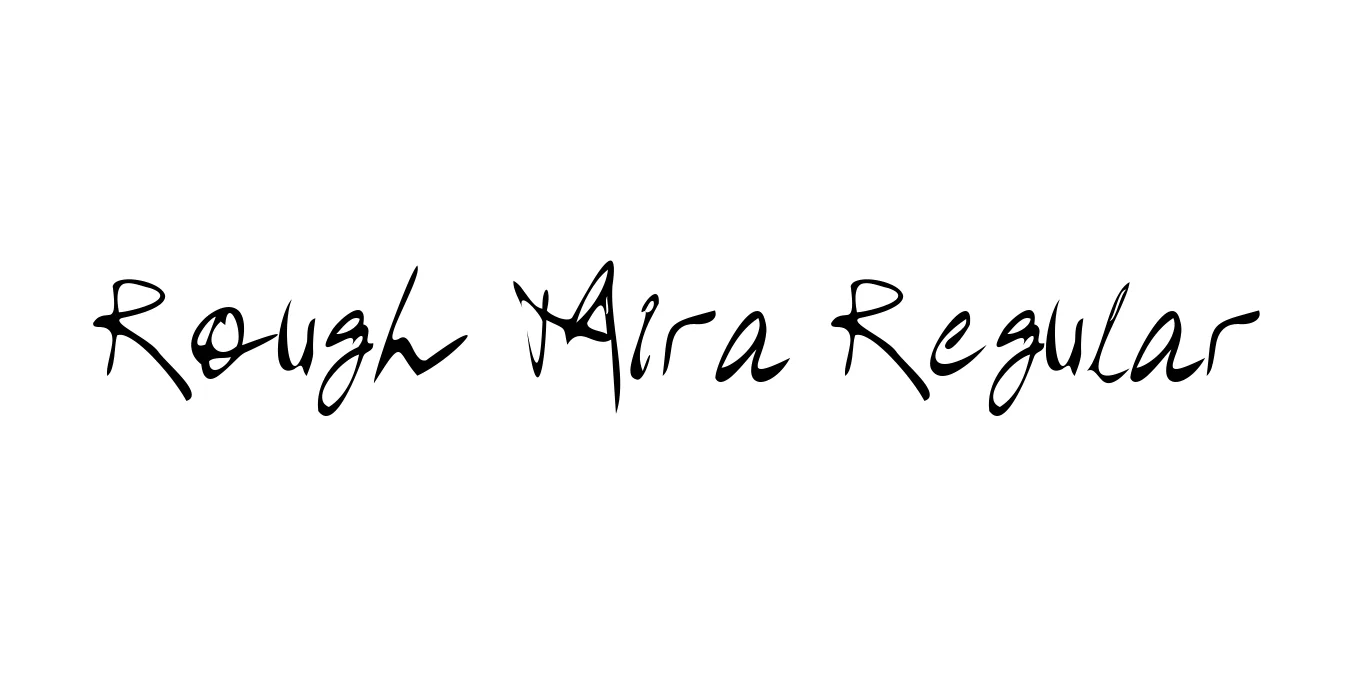
Rough Mira Regular
Designed by Aluyeah Studio
| Font Name | Rough Mira |
| Designer | Aluyeah Studio |
Rough Mira Regular is a striking brush script typeface that masterfully captures the raw, tactile energy of hand-painted lettering. Characterized by its distressed edges and organic flow, this font offers a rustic charm that brings an immediate sense of authenticity to any design. Its balanced composition ensures that while the texture is rugged, the overall legibility remains high, making it a versatile tool for both digital and print mediums.
Designed for creators who value a handmade aesthetic, Rough Mira Regular excels in projects that require a personal touch. The font's strokes vary in thickness and intensity, mimicking the natural pressure of a brush on paper. This dynamic quality makes it an excellent choice for everything from high-end artisanal packaging to casual lifestyle branding, providing a sophisticated yet unpolished look that stands out in a crowded visual landscape.
Rough Mira Regular Best Uses
Ideal for logos and identity systems that require an artisanal or rustic feel.
Perfect for organic food labels, craft beer bottles, and handmade goods.
Excellent for t-shirt designs and streetwear typography.
Great for social media graphics and promotional banners with a personal touch.